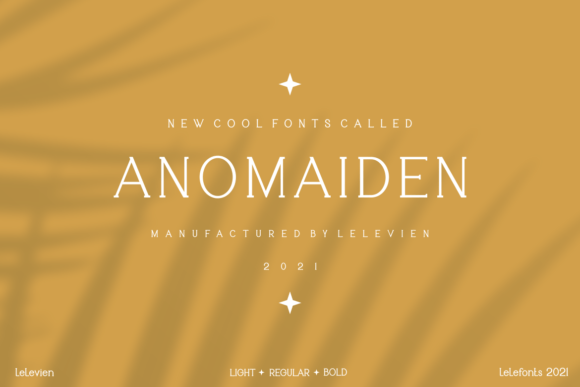
Introducing Anomaiden Font, the epitome of elegance and sophistication. Its thin, delicate strokes and graceful curves lend an air of distinction to any creative endeavor. Whether crafting captivating logos, enticing marketing materials, or creating stunning websites, Anomaiden Font is your go-to choice for leaving a lasting impression.
Immerse yourself in the boundless creativity Anomaiden Font unlocks. Its sleek design complements a wide range of projects, from modern websites to timeless print designs. Elevate your digital presence with Anomaiden's crisp, clean aesthetics, or add a touch of timeless charm to your print materials. Anomaiden Font is the perfect companion for forward-thinking designers seeking to make a statement.
Anomaiden Font's versatility extends beyond its aesthetic appeal. Its meticulously crafted characters ensure readability and clarity, making it an ideal choice for both digital and print applications. Whether gracing the pages of a magazine, captivating audiences in a presentation, or guiding users through a website, Anomaiden's presence commands attention without overpowering.
Experience the transformative power of Anomaiden Font today. Embark on a journey of creative exploration, where your imagination knows no bounds. Let Anomaiden's timeless beauty elevate your designs and captivate your audience. Embrace the elegance and sophistication of Anomaiden, and unleash your creative potential.